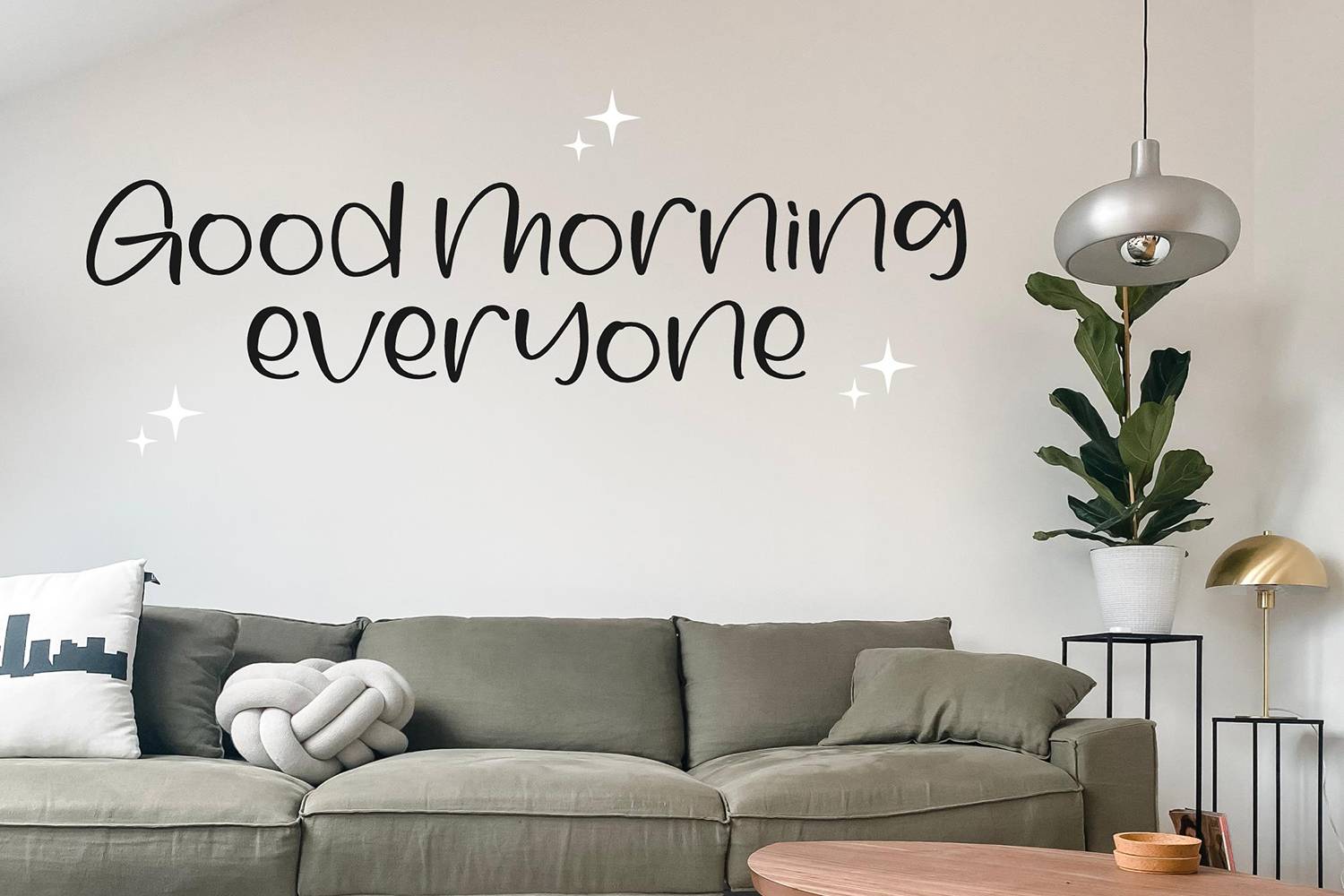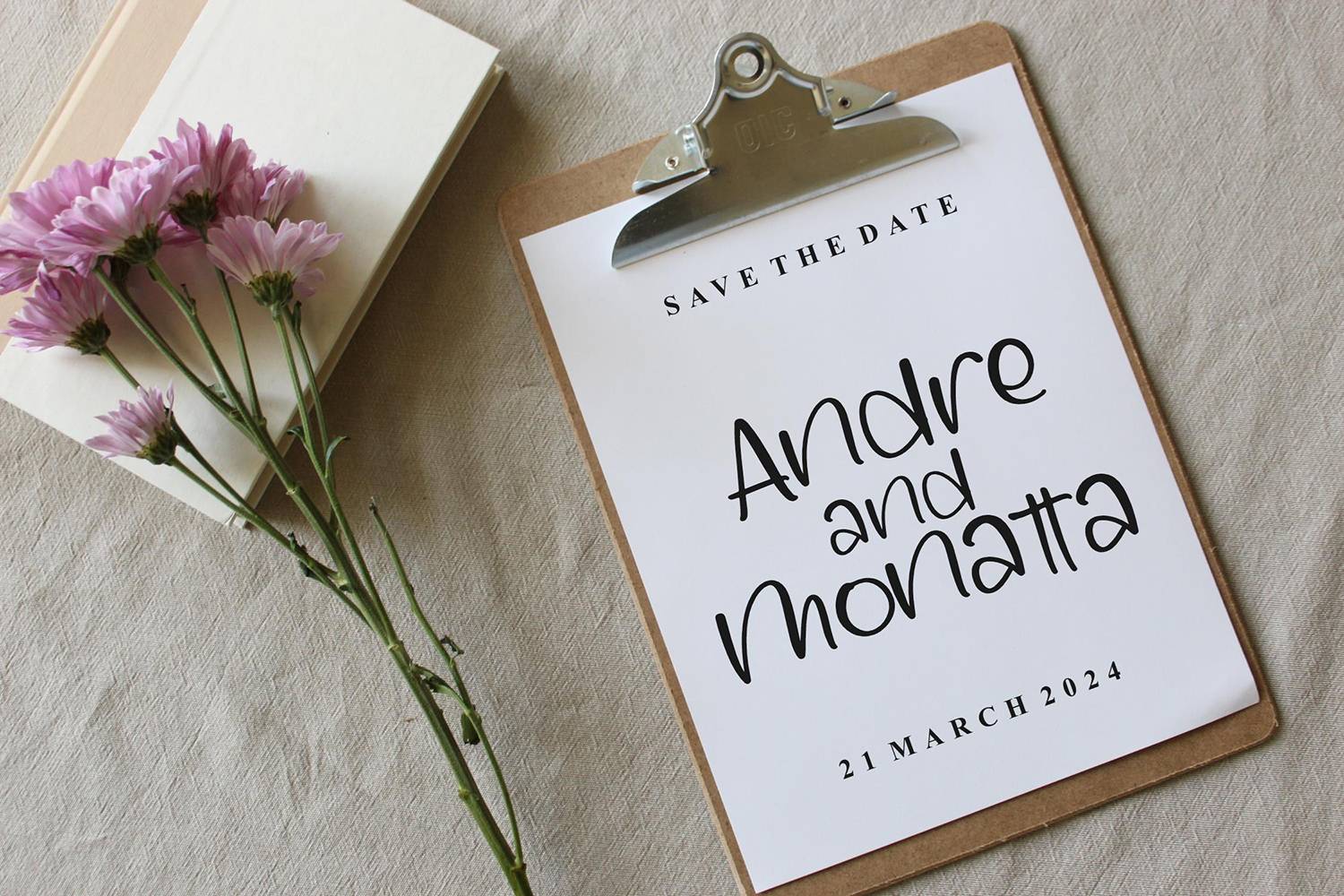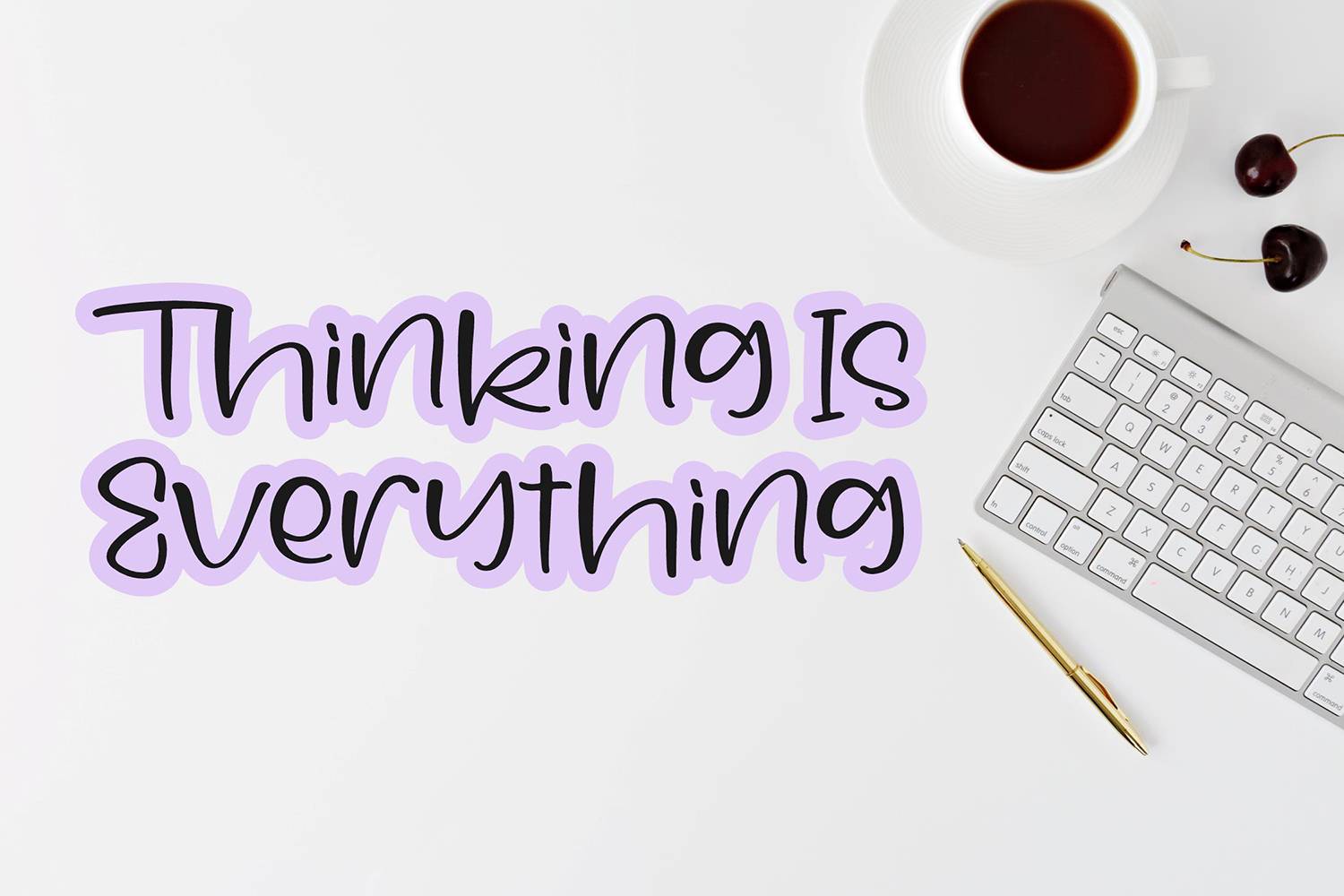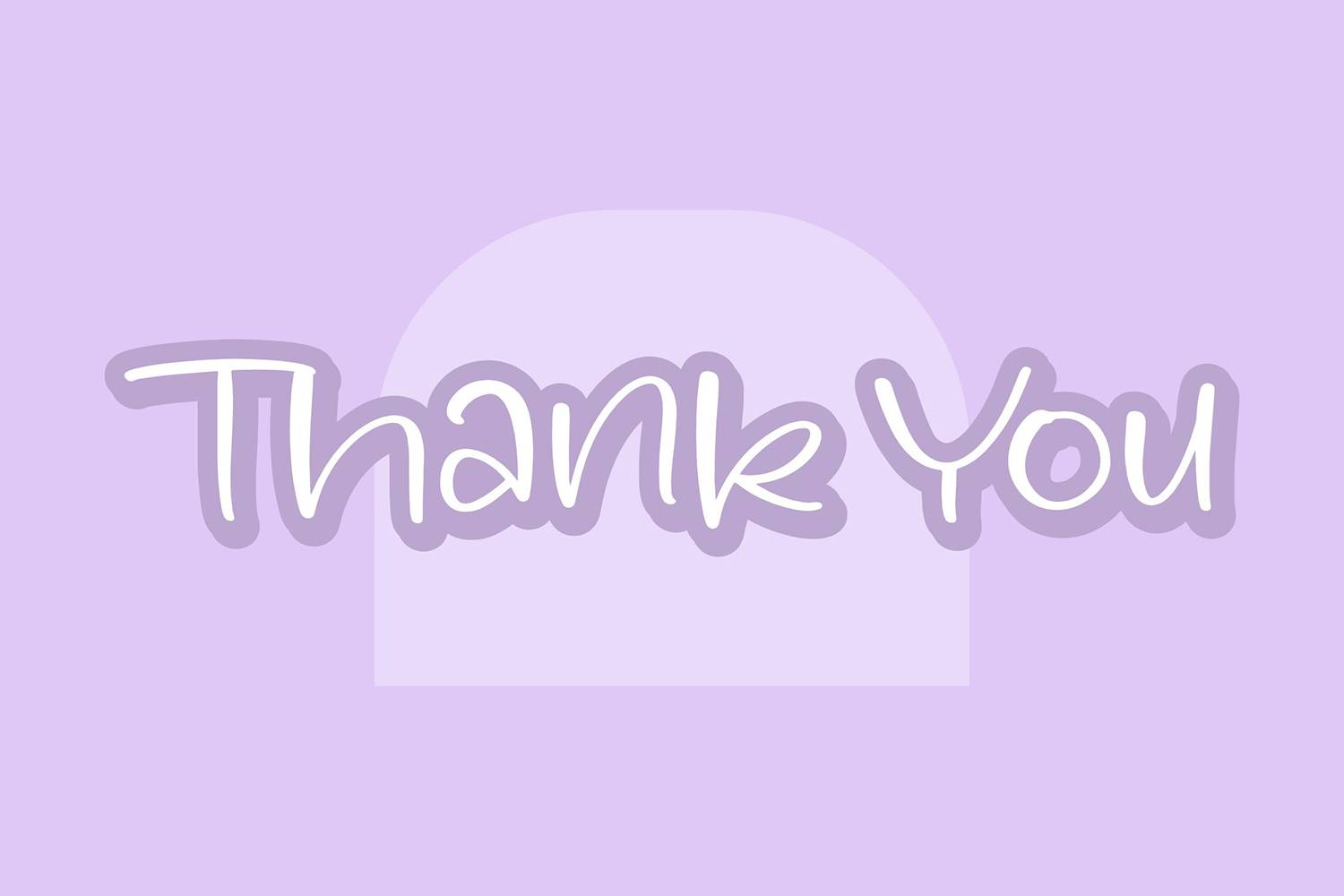
Daylight Font is a playful, handwritten sans-serif typeface with a casual and friendly vibe. Its tall, slender letterforms feature irregular strokes and organic curves that give it an approachable, informal feel, making it ideal for creative projects, children’s materials, or lighthearted branding. This font works best in headlines, logos, and designs where a unique, personal touch is desired.
Daylight Font
About Daylight Font